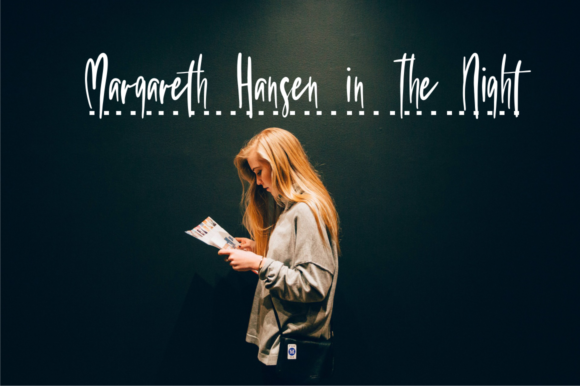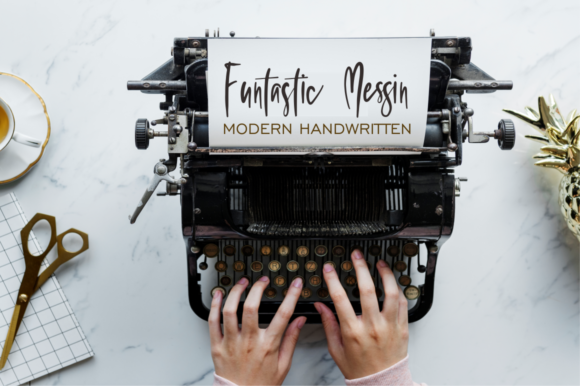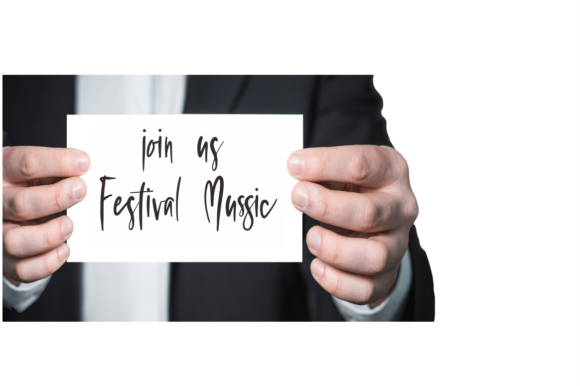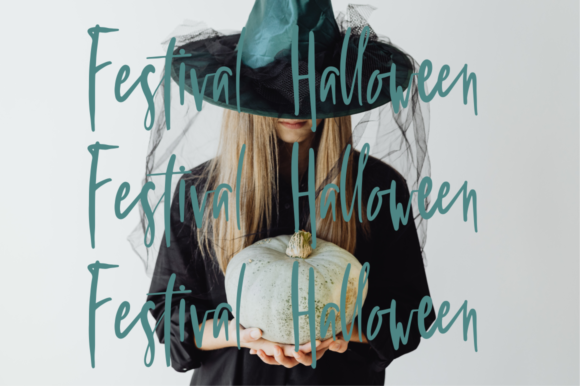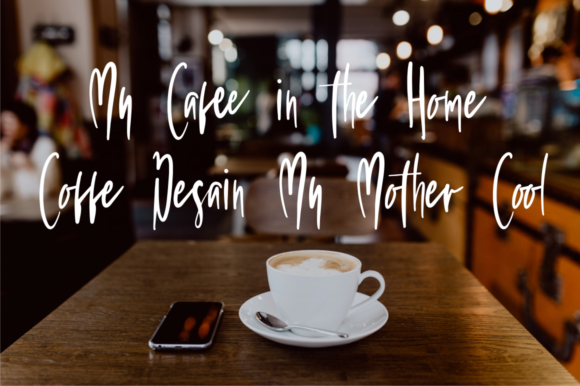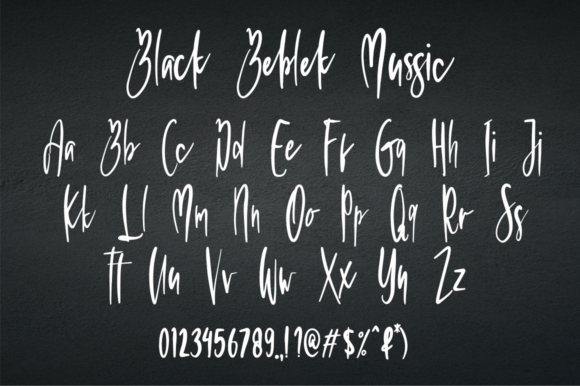
Unlock the Magic of Handwritten Typography
Have you ever been working on a design project, and you just can’t seem to find the right font to convey the emotions you’re trying to evoke? You’ve searched high and low, scrolled through endless options, and still, nothing seems quite right. It’s moments like these that make you appreciate the thrill of discovering a truly unique and captivating font.
Meet the Beblek Mussic Font, a stunning handwritten typeface that’s sure to breathe new life into your designs. With its dark and sharp impression, this font is perfect for adding a touch of sophistication and whimsy to your projects. Its amazing glyphs, swash alternates, and ligatures make it a valuable tool for designers looking to add some personality to their work.
The Beblek Mussic Font is more than just a font – it’s a key to unlocking the full potential of your designs. Whether you’re working on a branding project, a poster, or a digital campaign, this font is sure to help you stand out from the crowd and leave a lasting impression.
Beblek Mussic Font Key Features
- Font Style: A unique, handwritten font with a musical twist, designed to evoke a sense of creativity and expression.
- Character Count: 700+ glyphs, including a wide range of musical symbols, notes, and other creative characters.
- Unique Characteristics: Features a distinctive, hand-drawn feel with subtle imperfections, giving it a unique and authentic look.
Beblek Mussic Font Review
As a designer, I was excited to try out the Beblek Mussic Font. Upon initial use, I found that it works well in certain contexts ✨. The font’s unique, handwritten feel adds a touch of personality to headings and titles, making it perfect for creative and artistic projects. It’s also relatively easy to read, even at smaller font sizes.
- Perfect for creative and artistic projects
- Unique, handwritten feel adds personality
- Relatively easy to read
However, I did encounter some limitations ⚠️. The font’s irregularities can make it difficult to read in long blocks of text, and the font’s spacing can be inconsistent at times. Additionally, the font’s lack of standard letterforms can make it challenging to use in formal or professional contexts.
- Difficult to read in long blocks of text
- Inconsistent spacing
- Challenging to use in formal or professional contexts
Overall, the Beblek Mussic Font is a solid choice for designers looking to add a touch of creativity to their projects. While it may not be suitable for all types of projects, it’s a great option for those looking to break away from standard fonts.
The Beblek Mussic Font is ideal for:
- Creating music-related designs, such as album art or posters.
- Adding a unique touch to your website or blog.
- Designing invitations or event materials with a musical theme.
For optimal results, use the Beblek Mussic Font in combination with other creative elements, such as graphics and textures, to create a cohesive and eye-catching design.
Alternatives to Beblek Mussic Font
Alegreya Sans
Alegreya Sans is a modern sans-serif font that is perfect for digital designs, such as websites and mobile apps. It is highly legible and versatile, making it suitable for a wide range of applications.
Comparison to Beblek Mussic Font: Alegreya Sans has a more geometric and clean design, whereas Beblek Mussic Font has a more playful and handwritten feel. Alegreya Sans is also more suitable for digital designs, whereas Beblek Mussic Font is better suited for print designs.
Montserrat is a sans-serif font that is inspired by the urban environment of Buenos Aires. It is highly legible and versatile, making it suitable for a wide range of applications, including logos, signage, and digital designs.
Can I use Beblek Mussic for commercial projects?
Yes, Beblek Mussic is a commercial font and can be used for any project, including commercial use. However, please ensure that you have purchased a valid license for the font and that you comply with the terms of the license agreement.
What is the recommended font size for using Beblek Mussic?